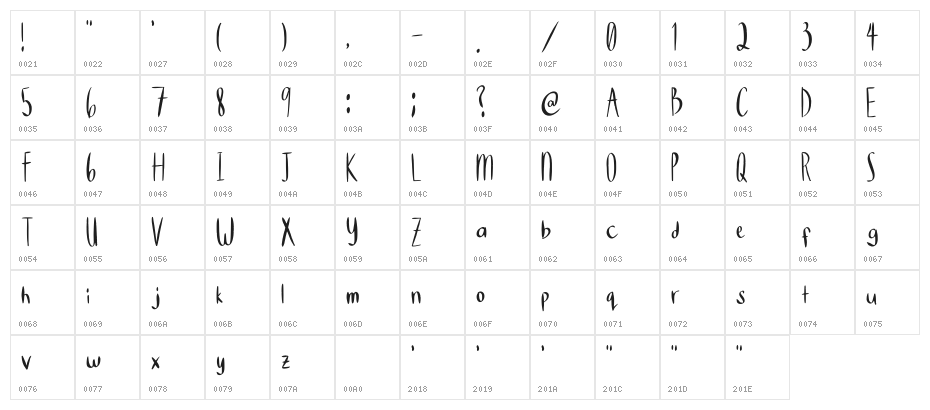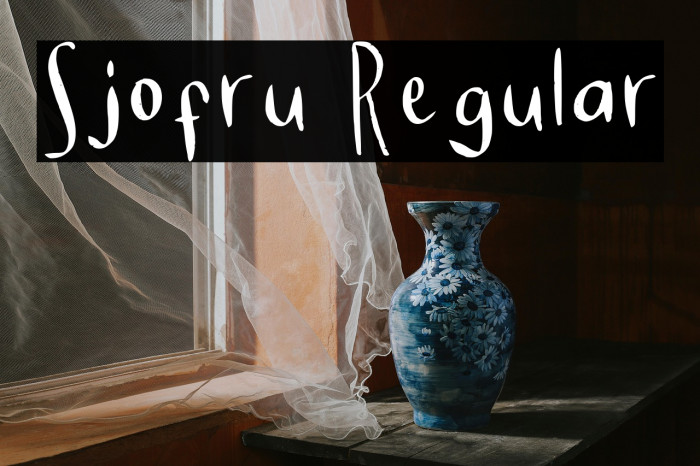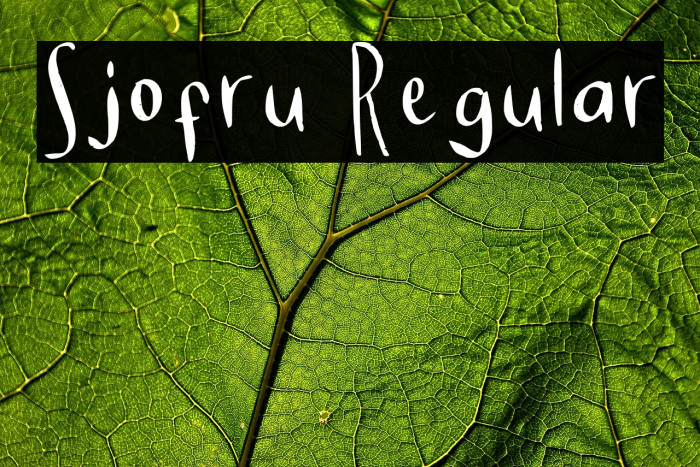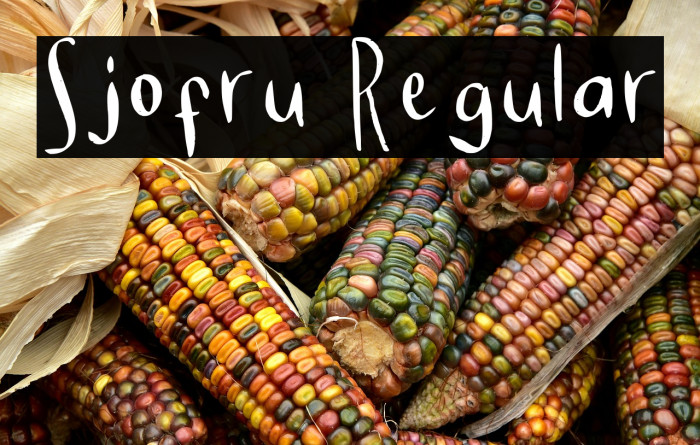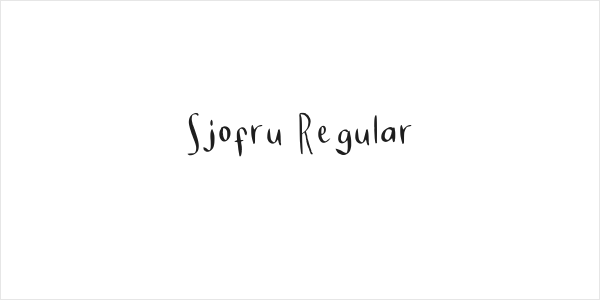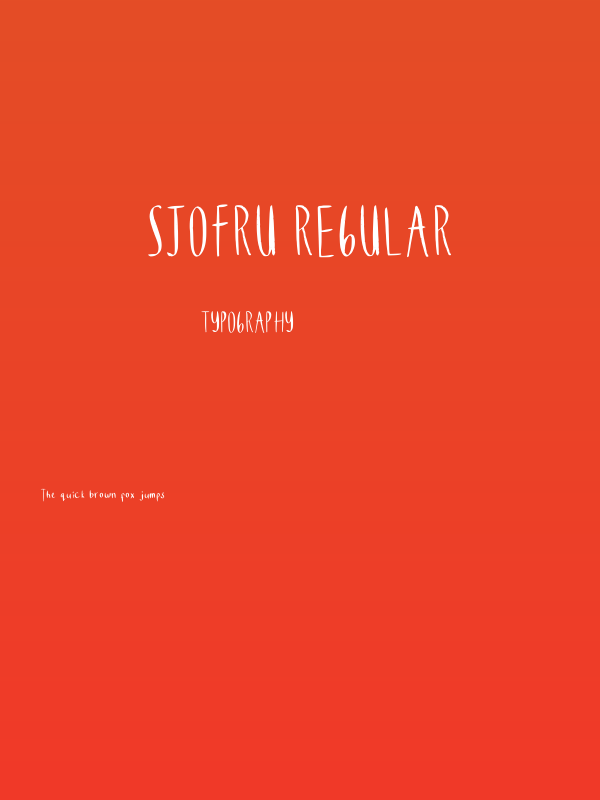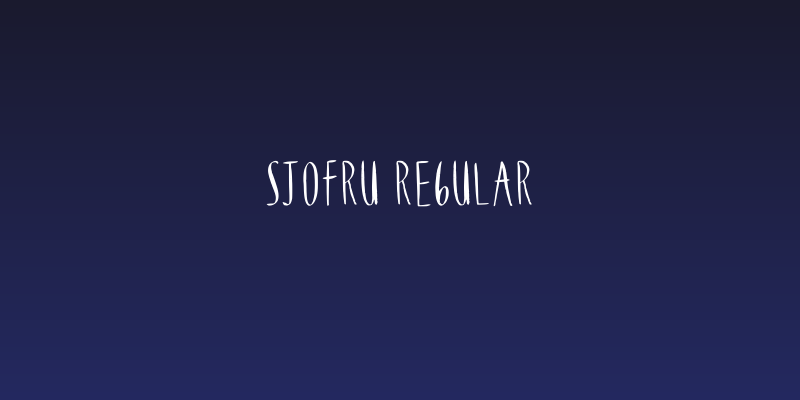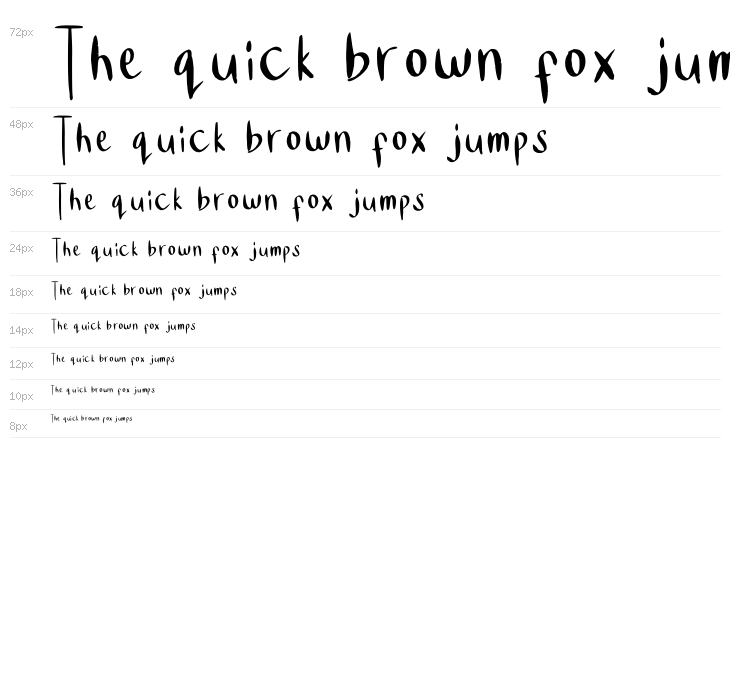
Sjofru Regular Font
Sjofru Regular Description
This font features a playful and artistic handwritten style with a casual and organic feel. The letters are slightly irregular, adding a personal touch that mimics natural handwriting. The strokes are varied in thickness, giving a dynamic and lively appearance. The uppercase letters are tall and slender, while the lowercase letters maintain a consistent flow with rounded edges. Numbers and special characters are designed to match the whimsical and informal aesthetic, making this font suitable for creative and expressive projects.
| Overall Style | Decorative |
| Use Case | Logos, Headlines, Creative projects |
| Proposed Projects | Ideal for greeting cards, invitations, personal branding, and creative posters. |